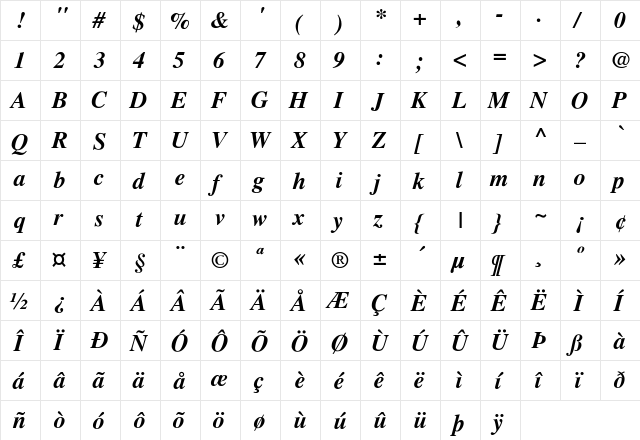
Dabbington Bold Italic 2 Regular
Design Context for Dabbington Bold Italic 2 Typeface
Dabbington Bold Italic 2 is a composed and adaptable typeface that performs quietly and consistently across a wide range of design contexts. Its italic angle brings a sense of urgency and motion to the letterforms. Its bold stroke weight gives it real presence on the page.
Pro Tip: Try Dabbington Bold Italic 2 for annotation and caption copy alongside an upright companion — the contrast in angle creates a dynamic but ordered typographic system.